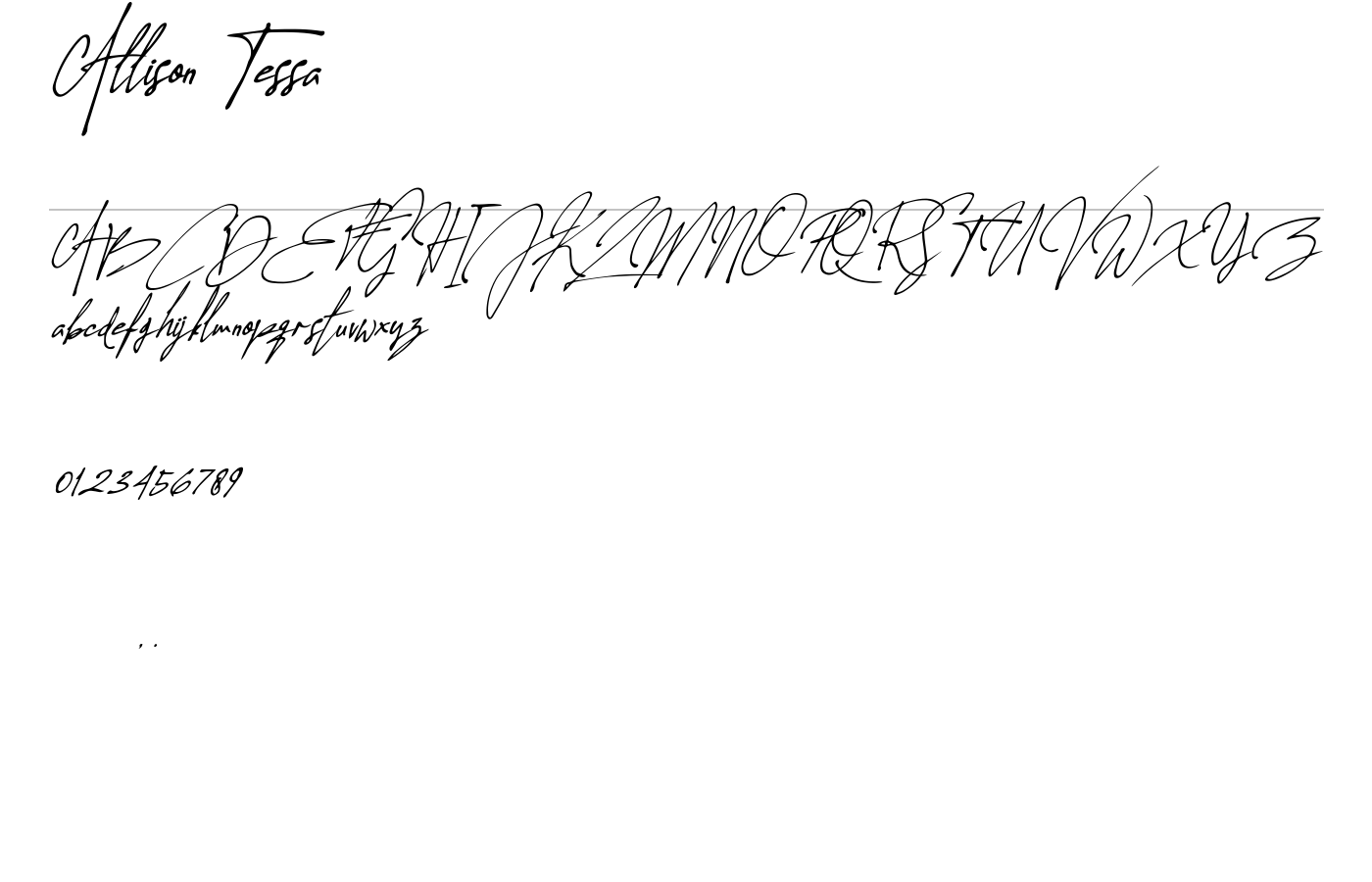
Allison Tessa is a delicate, handwritten script font characterized by its tall, narrow letterforms and flowing, cursive style that mimics natural penmanship. Its light weight and elegant, slightly chaotic strokes give it a personal, artistic feel well-suited for creative branding, invitations, and fashion-related projects. This font works best in designs that seek a unique, intimate touch, adding personality and sophistication without overwhelming the composition.
Allison Tessa Font
About Allison Tessa Font